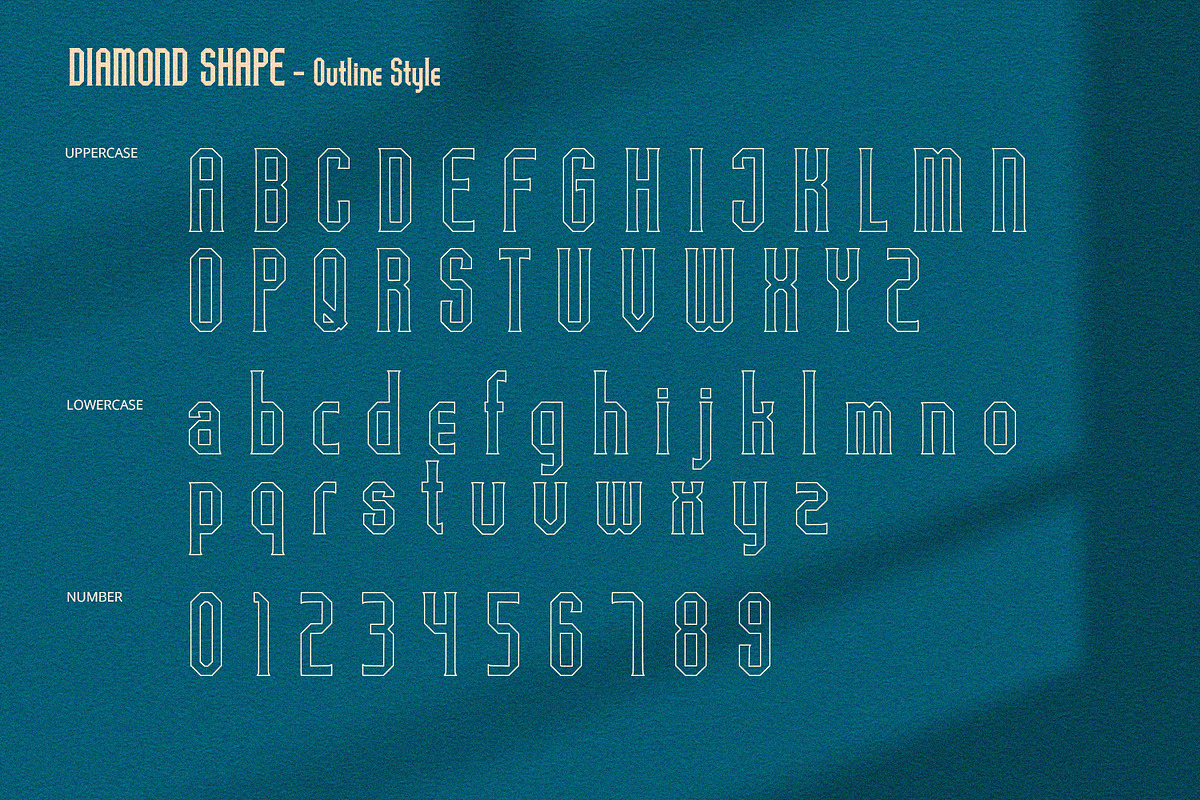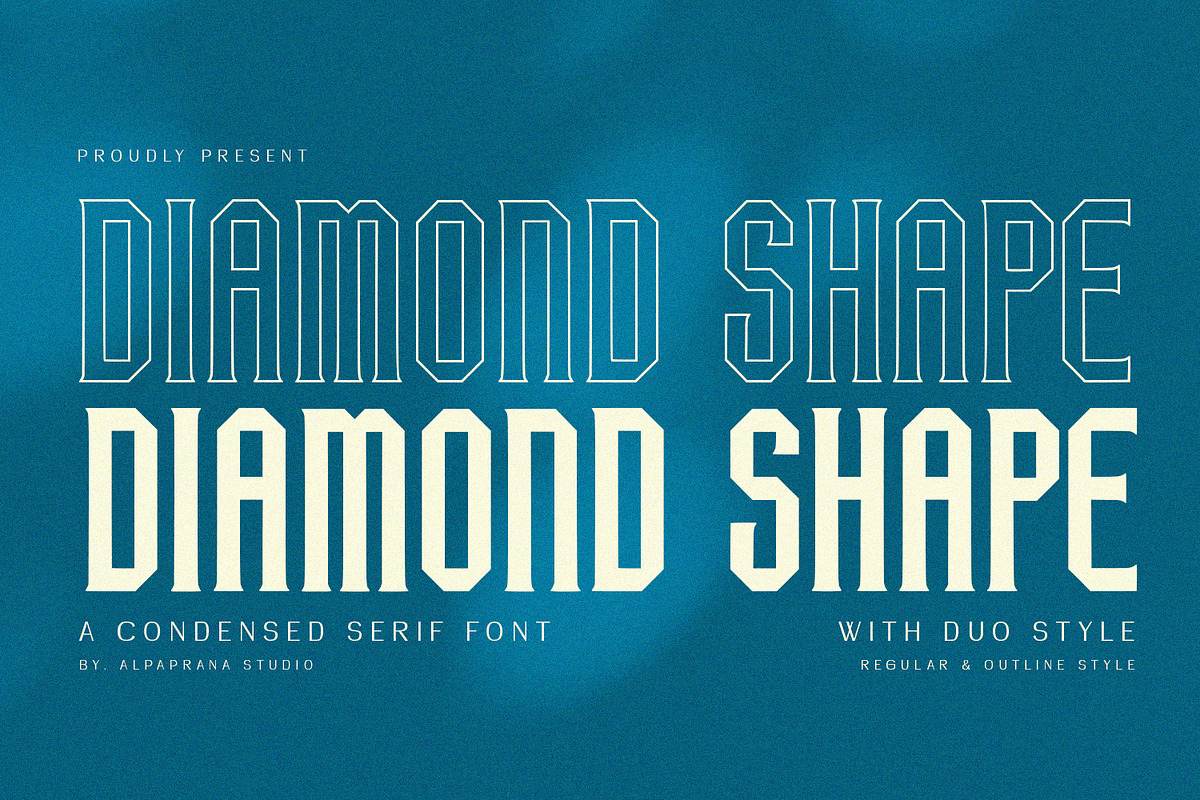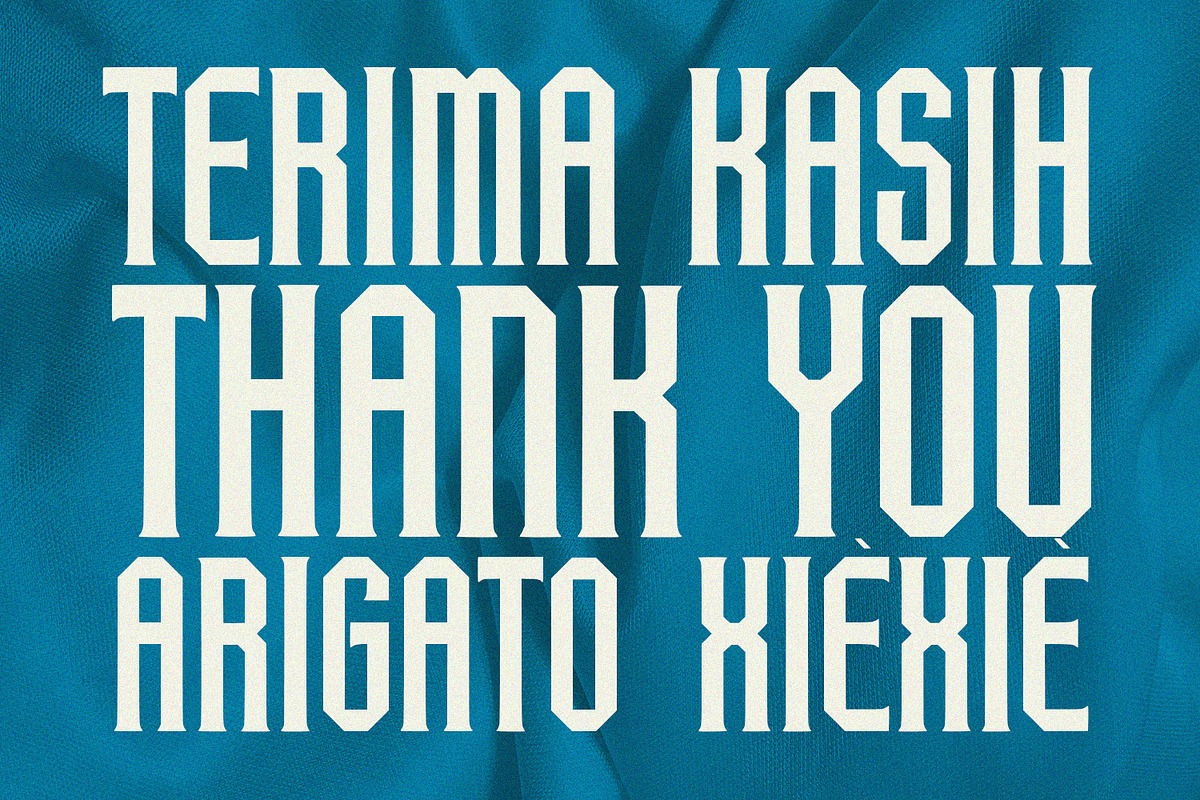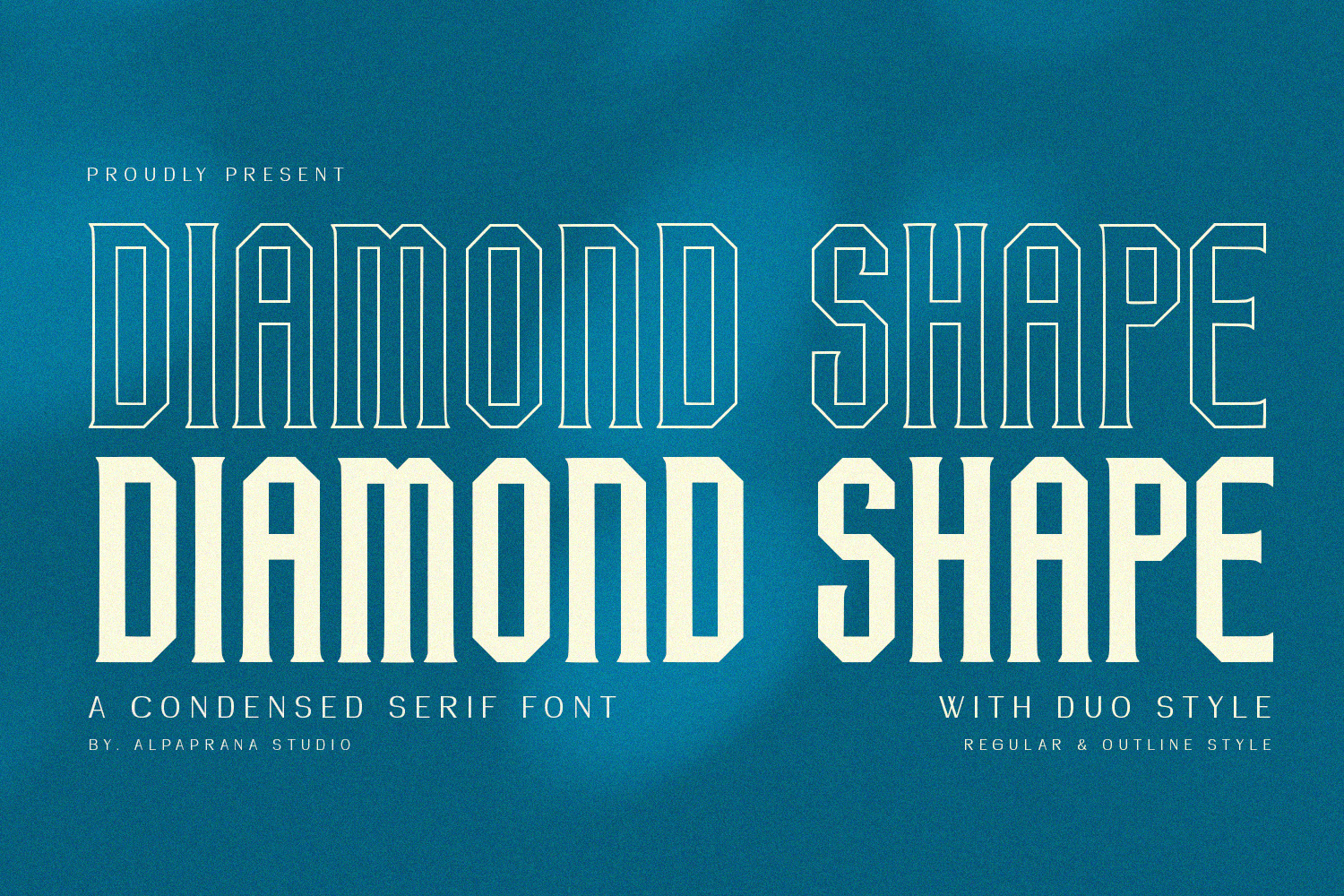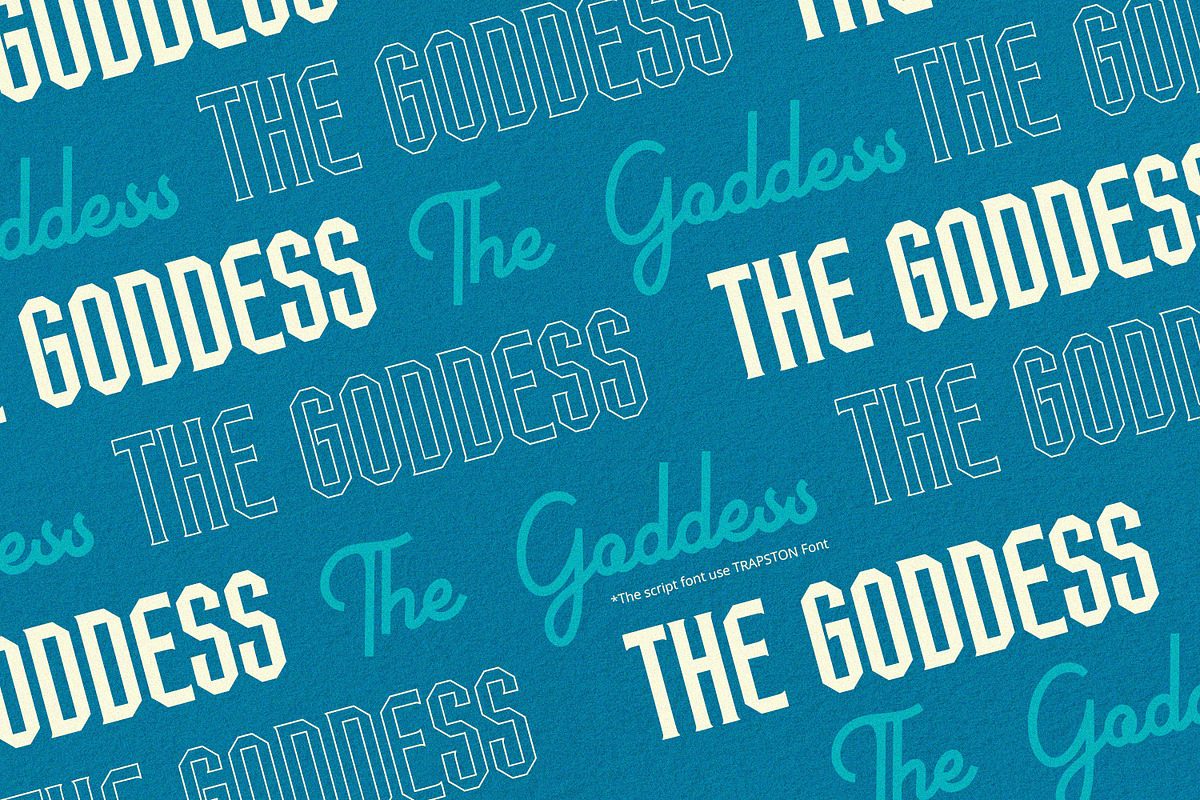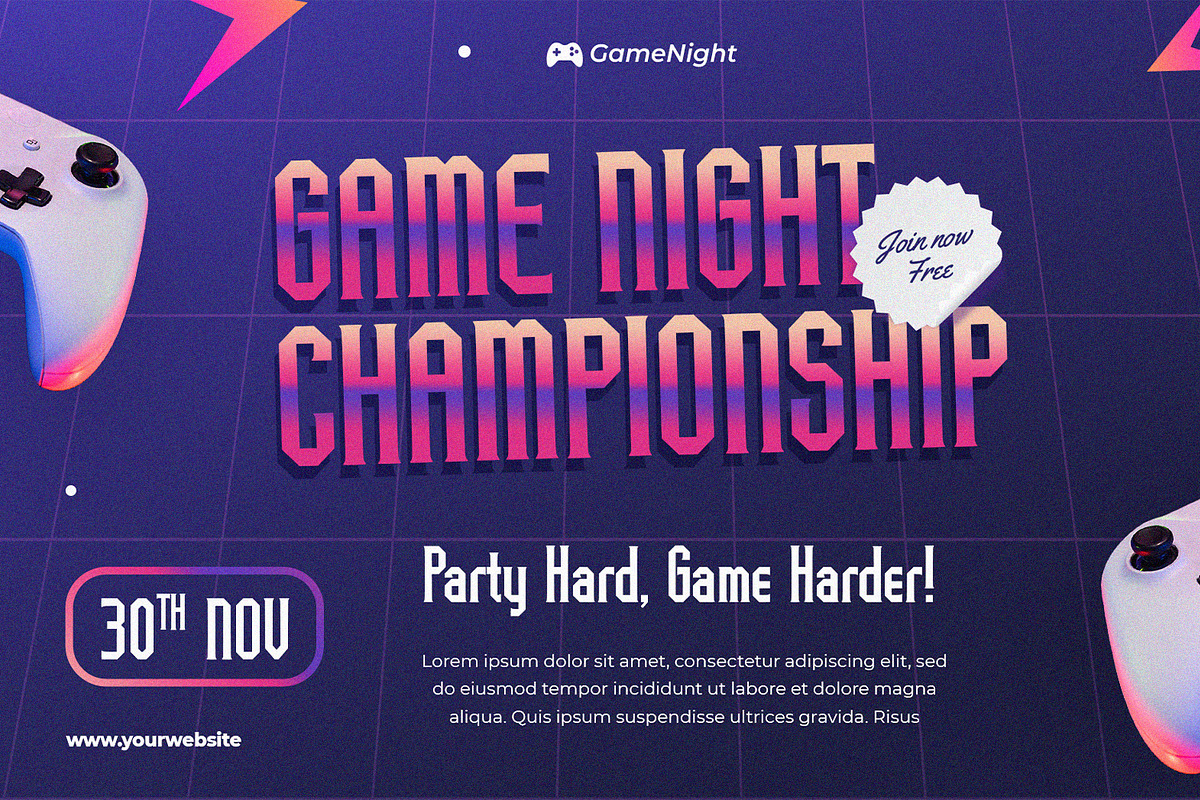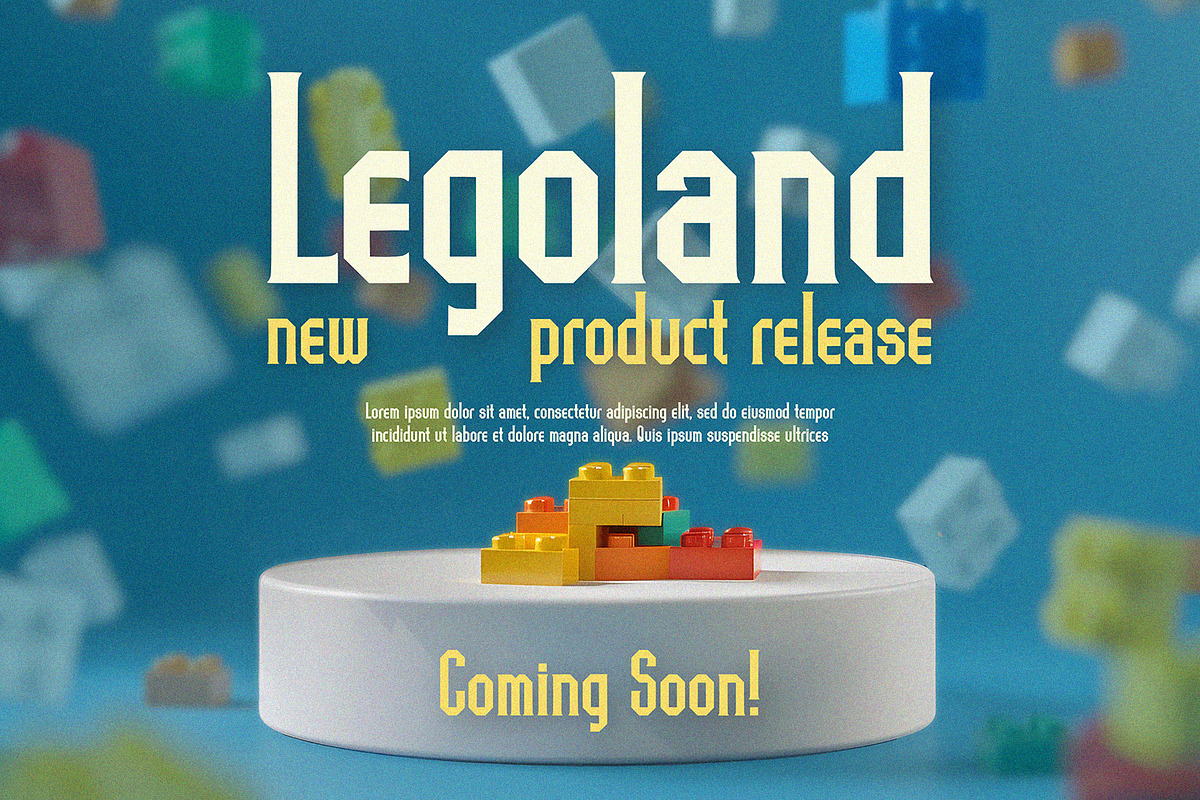
Diamond Shape - Serif Font
Diamond Shape is a condensed serif font with elegant and modern feels. It will be perfectly used for Branding, Logo Design, Lettering, Logotype, Clothing, Poster, magazine, packaging, posters, shopping bags, t-shirts, book covers, photography, special events and other design project.